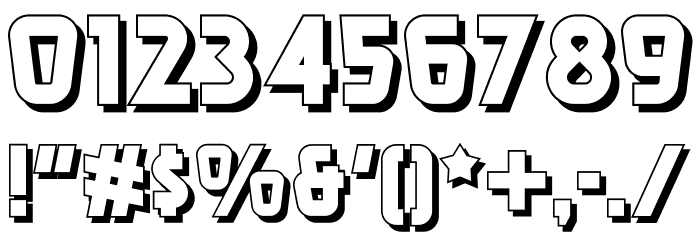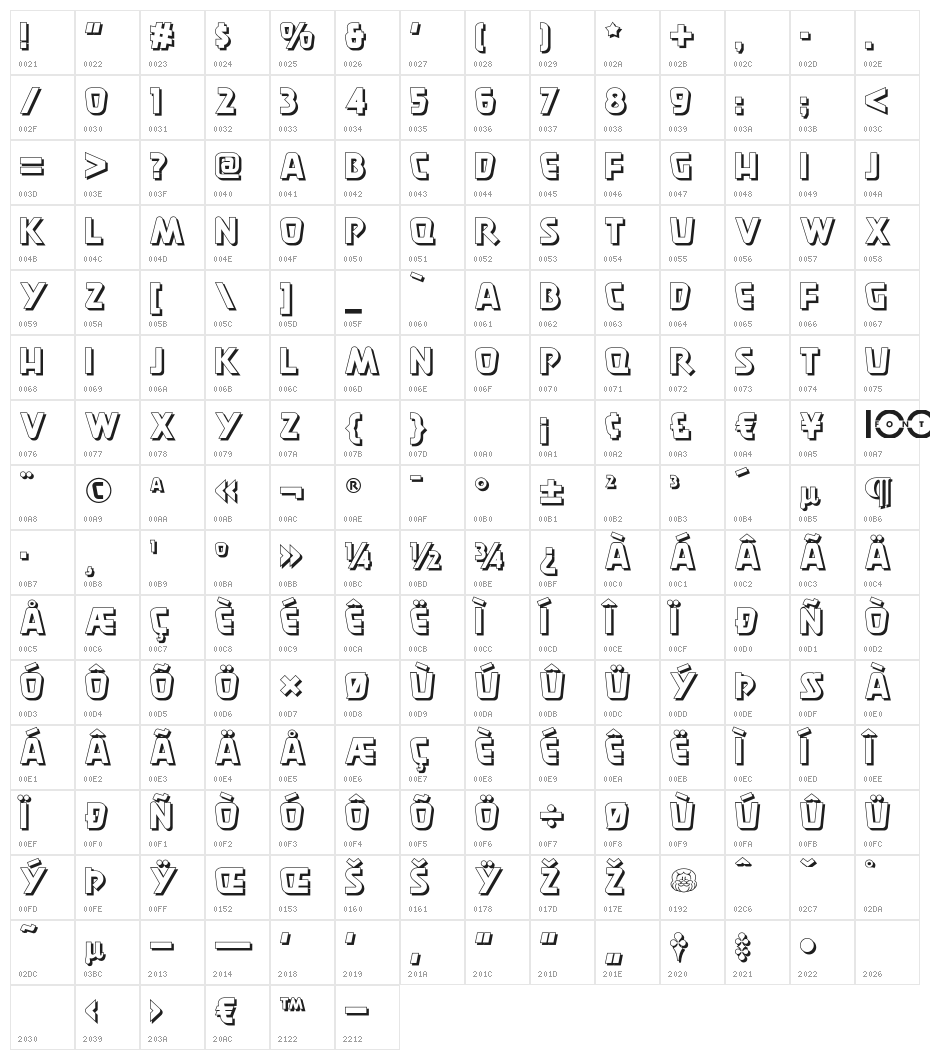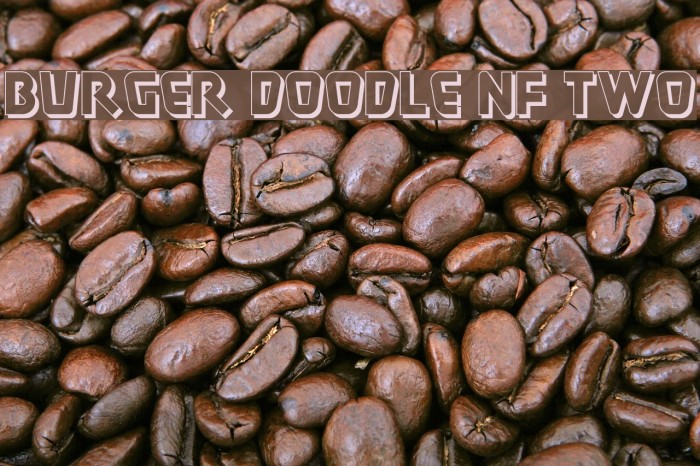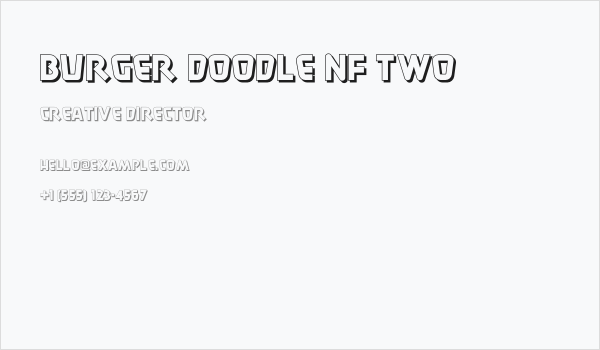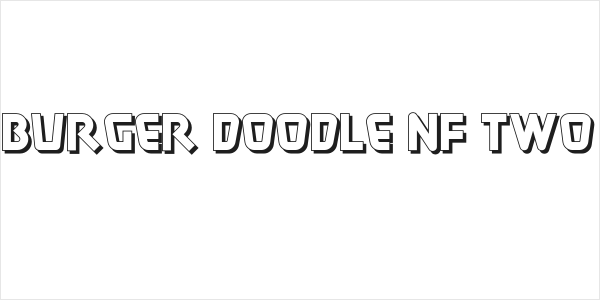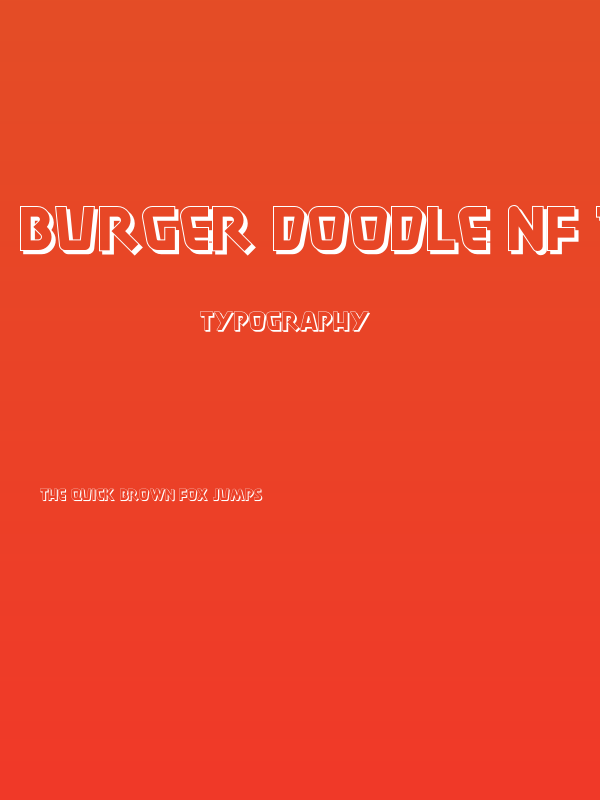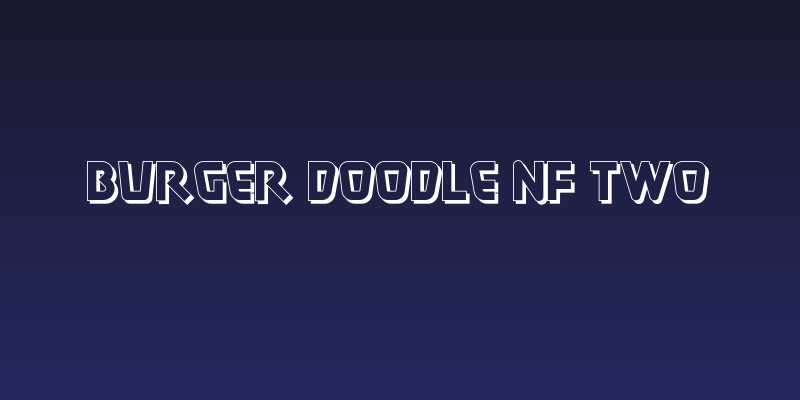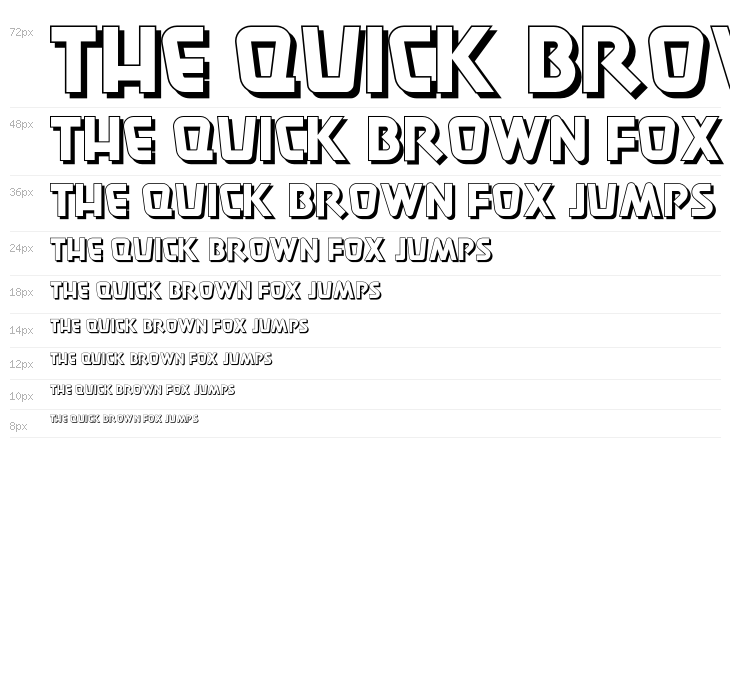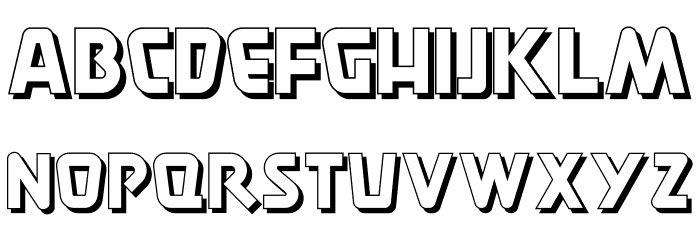
Burger Doodle NF Two Font
Burger Doodle NF Two Description
This font features a bold, playful design with a three-dimensional effect, characterized by thick, blocky letters that have a shadowed outline. The uppercase and lowercase letters maintain a consistent style, with a strong geometric influence that gives them a modern, dynamic appearance. The numbers and special characters follow the same design principles, ensuring uniformity across all glyphs. The font's unique style makes it stand out, with a sense of fun and creativity that is ideal for eye-catching designs.